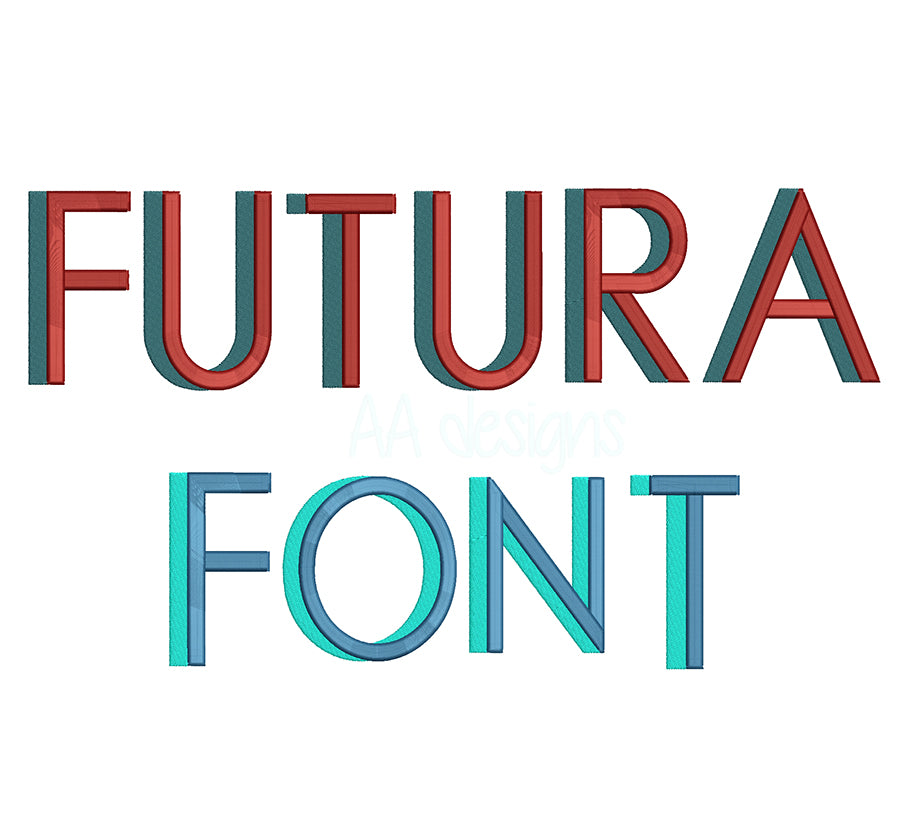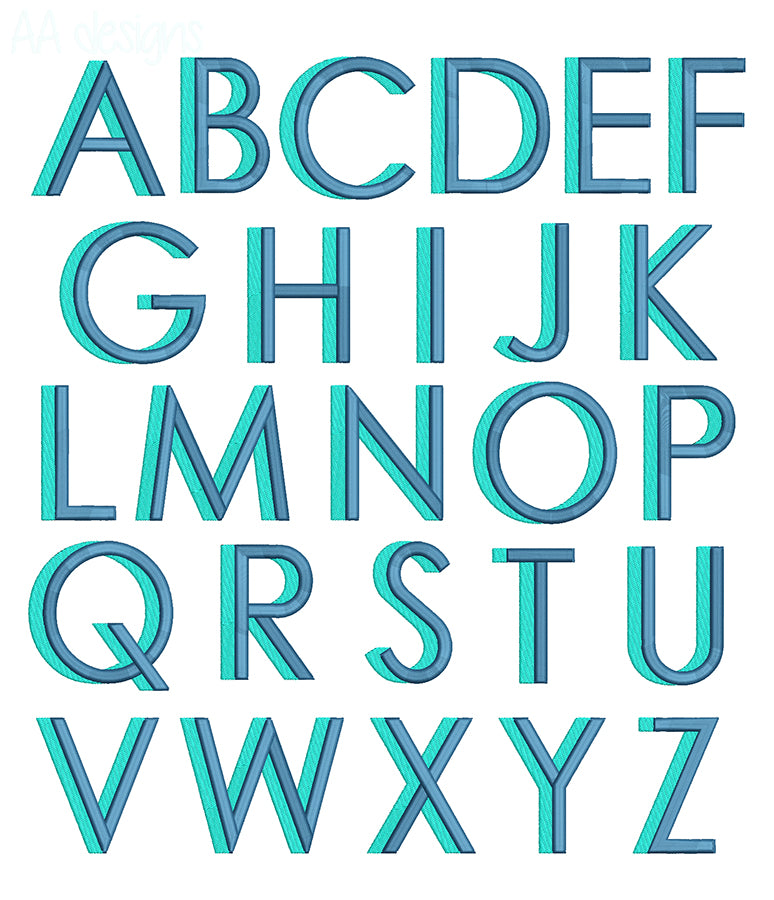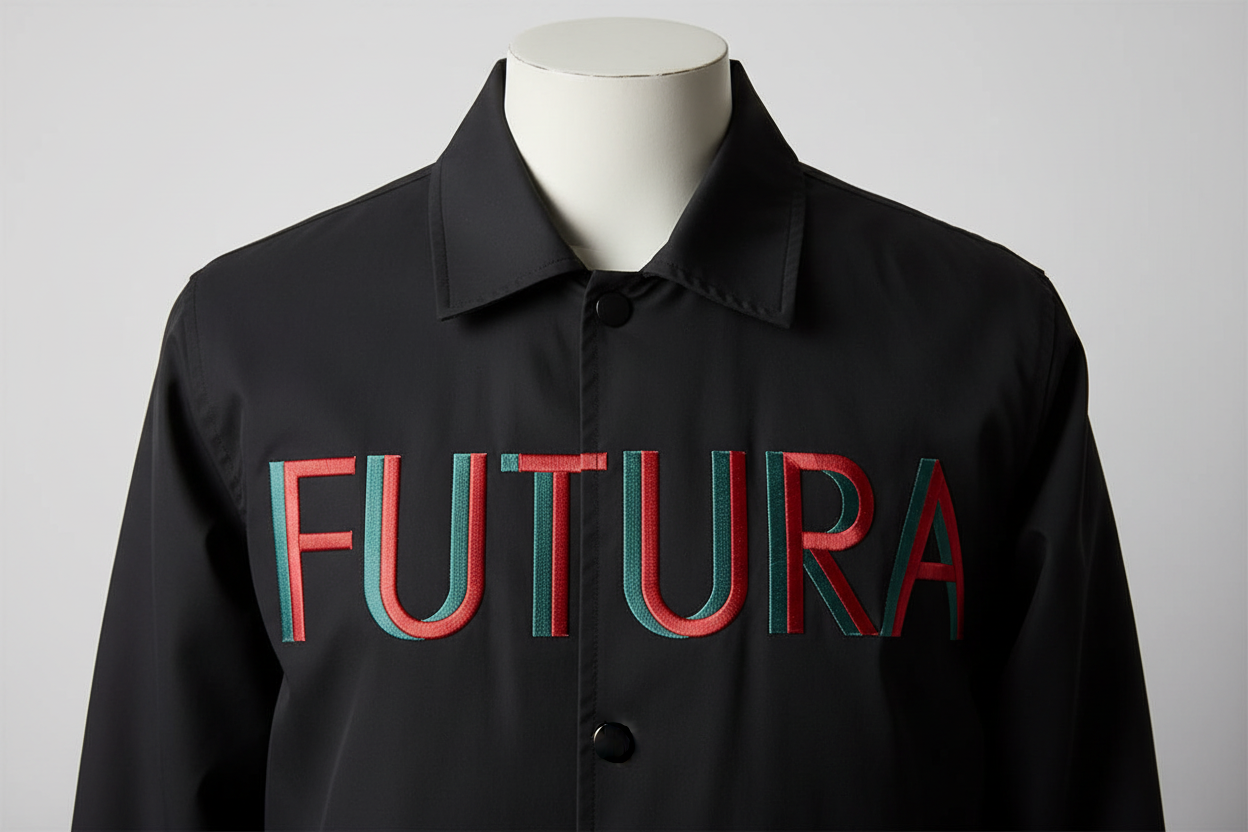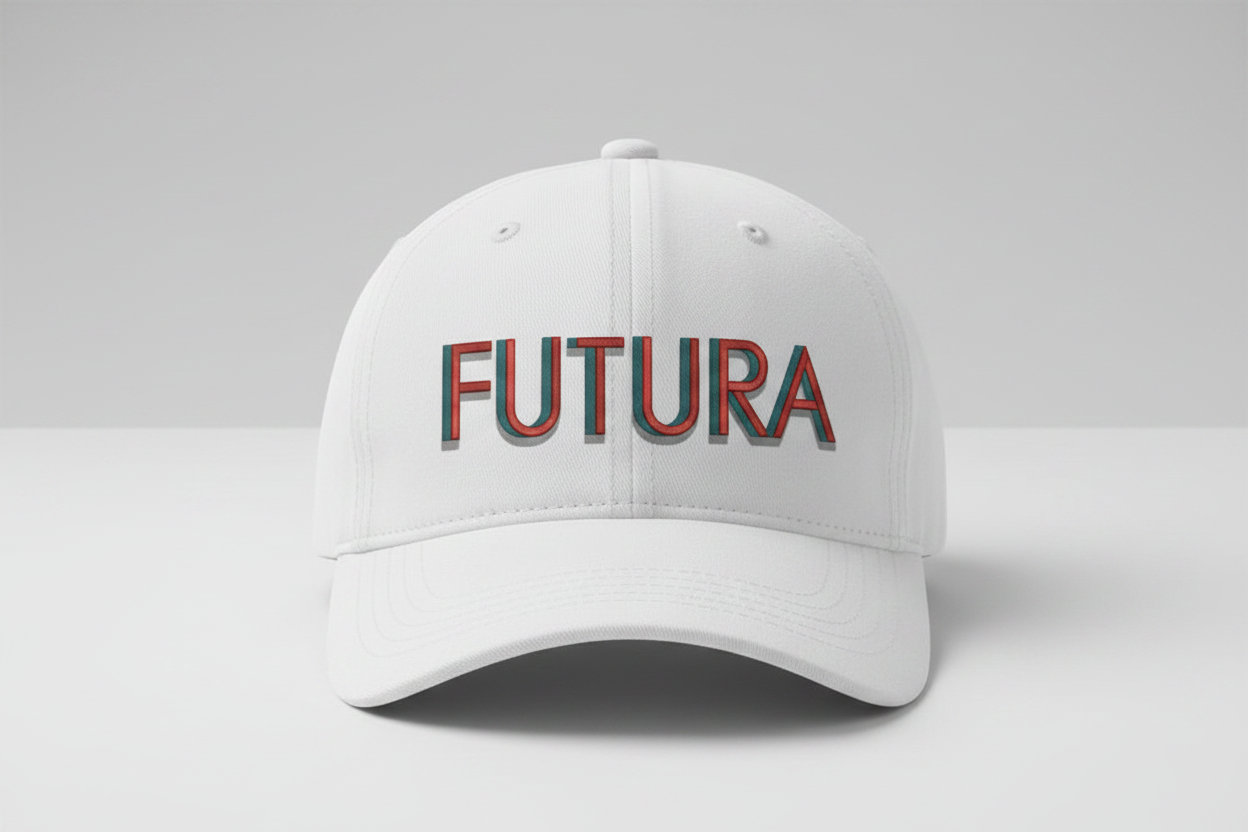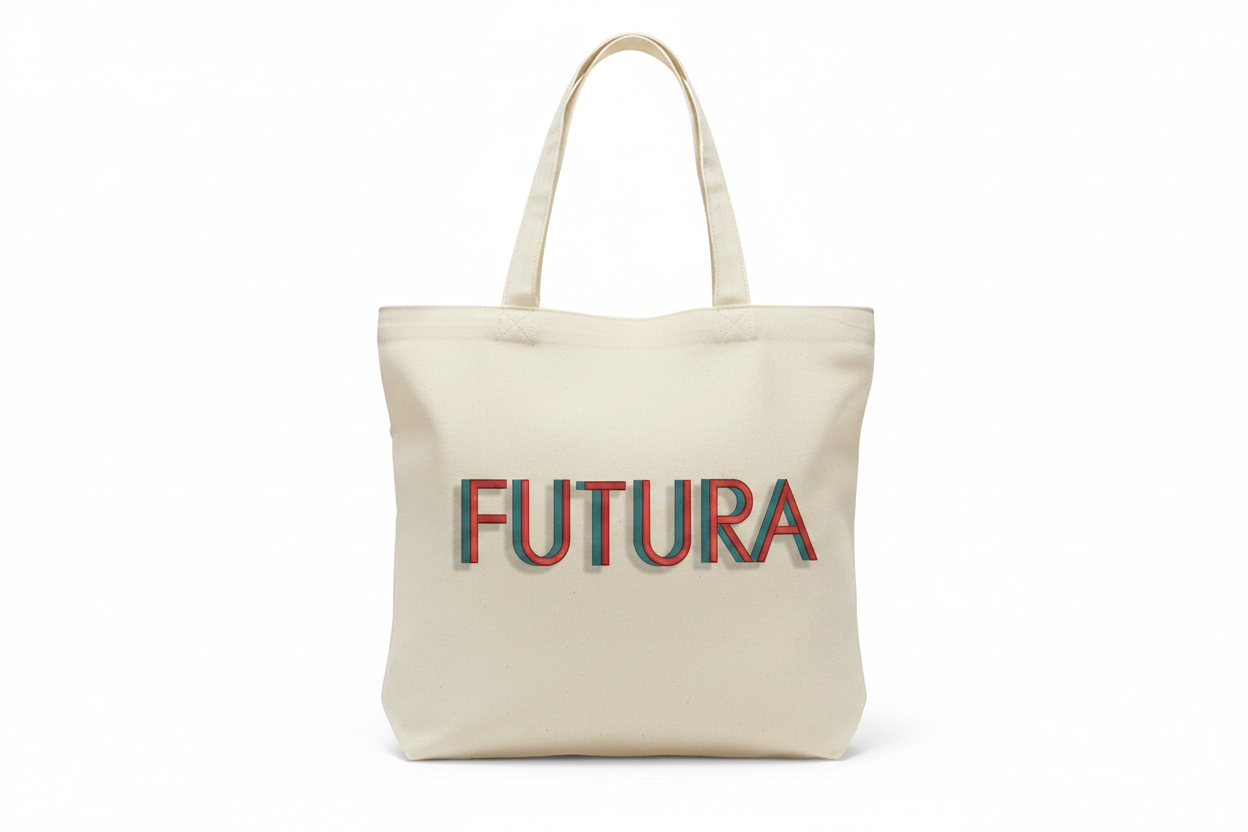
Instant-download machine embroidery 3D puff FUTURA font — bold, geometric, and modern. Perfect for caps, jackets, tote bags, and more. Compatible with all major embroidery formats.
- 3D puff embroidery design
- Great for caps, jackets, and canvas tote bags
This font comes with letters in 3 sizes, A-ZYou must use 3D puffy foam to achieve the 3D effect.